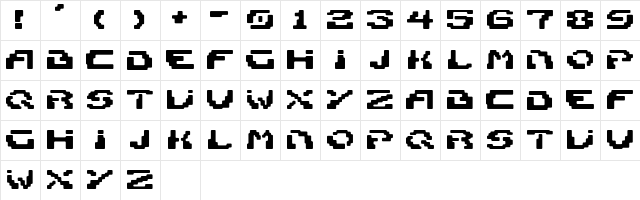
Blokk Regular
Design Context for Blokk Typeface
Blokk takes a measured approach to typography — its balanced proportions and neutral character make it a reliable workhorse for both digital and print work.